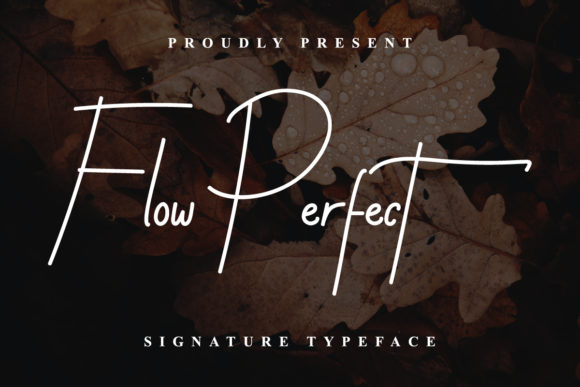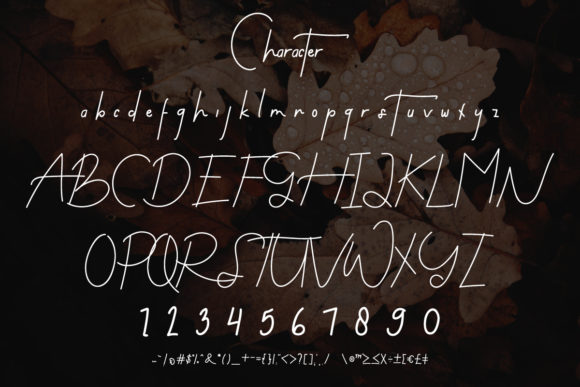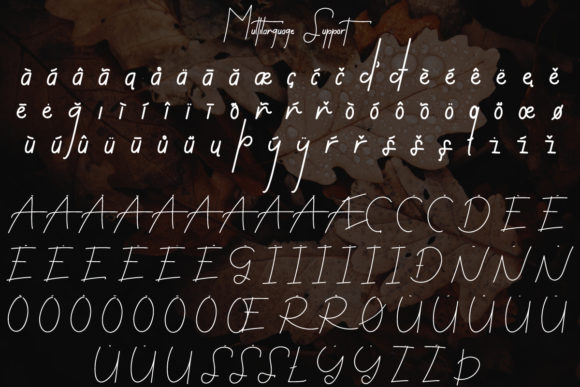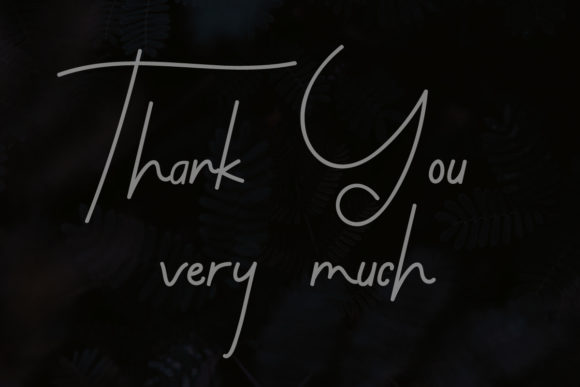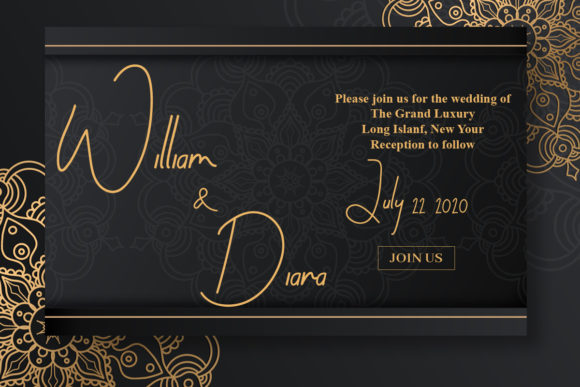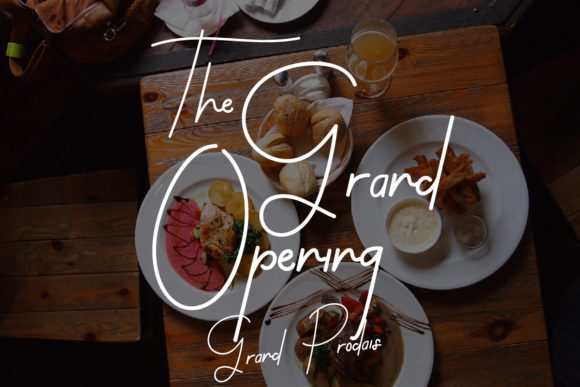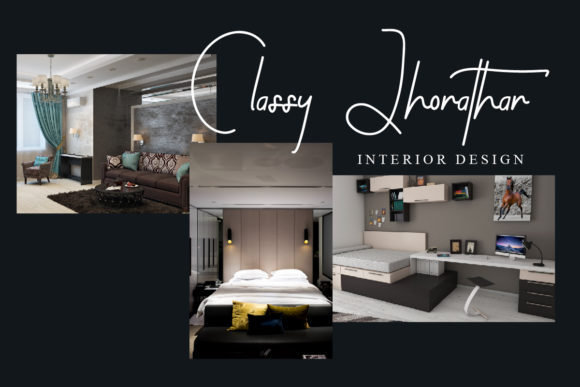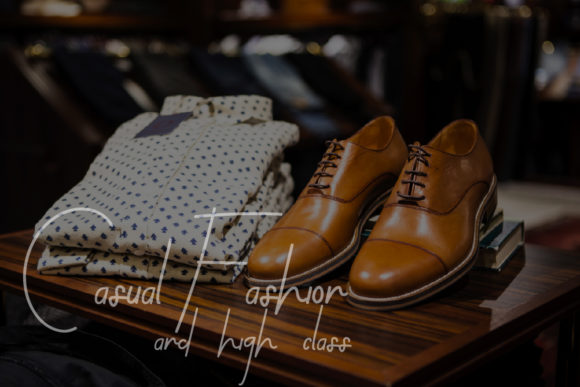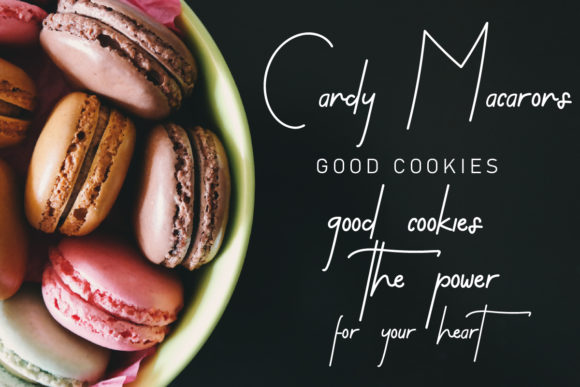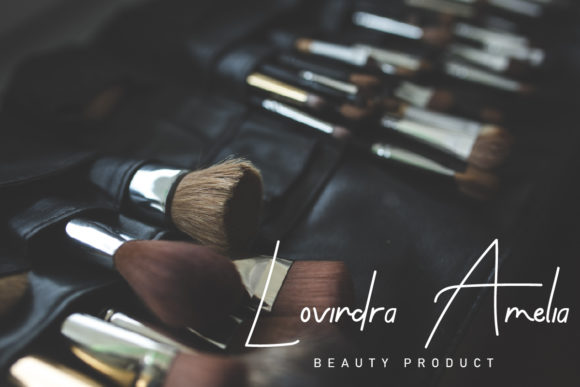
Flow Perfect Font
Flow Perfect is an exclusive handwritten script typeface with a signature style. This font has a stunning characters set, perfectly managed with well spaced and kerning. Get creative with this unique font and create amazing designs!